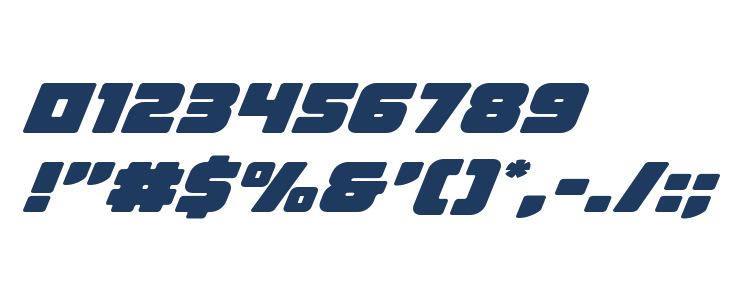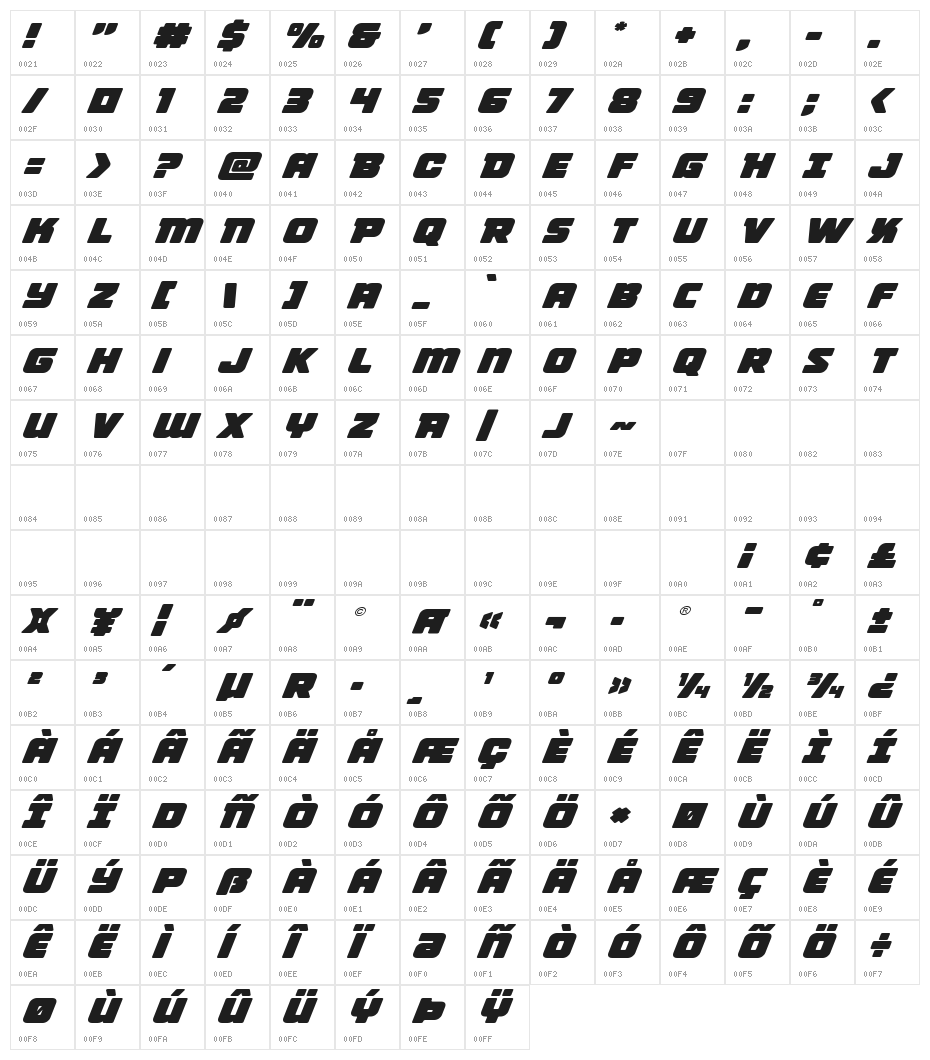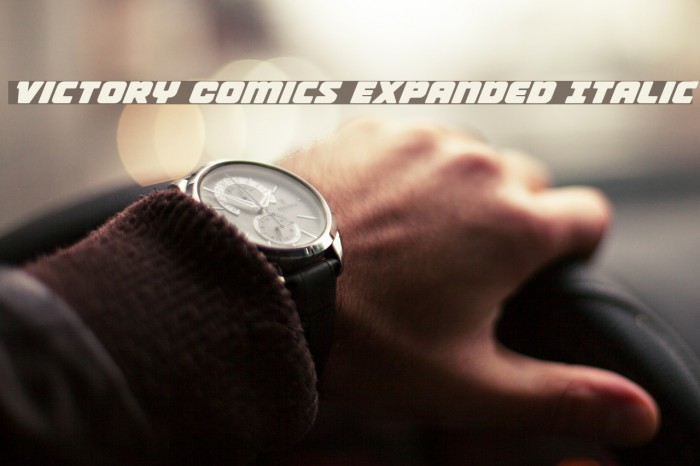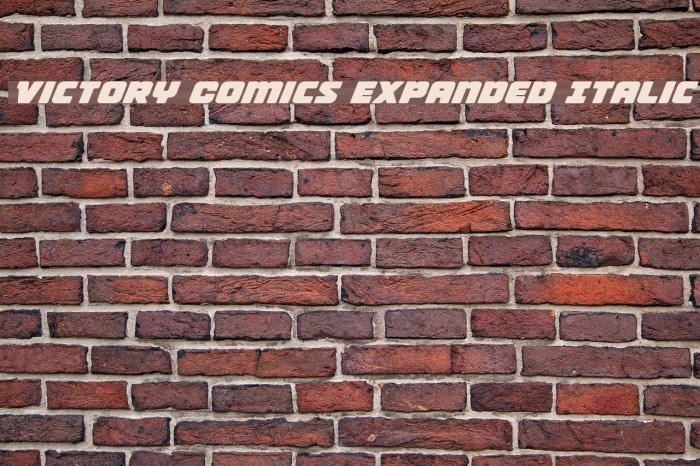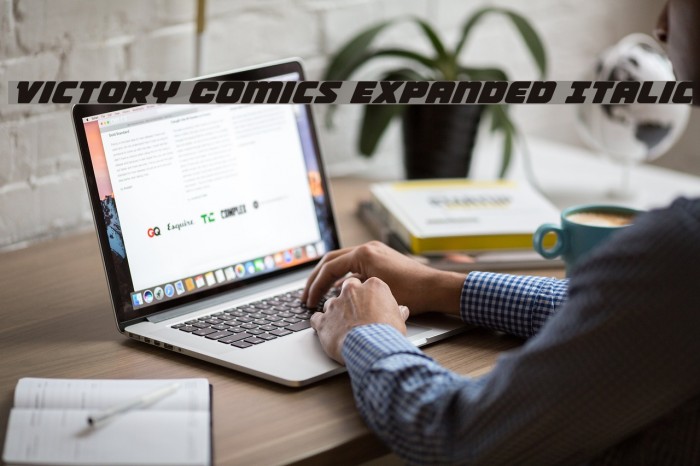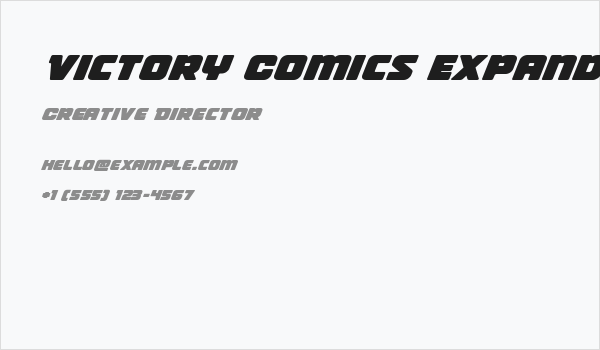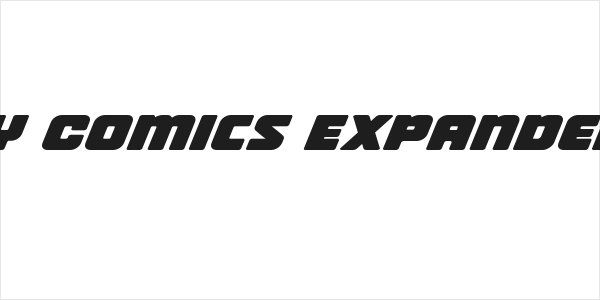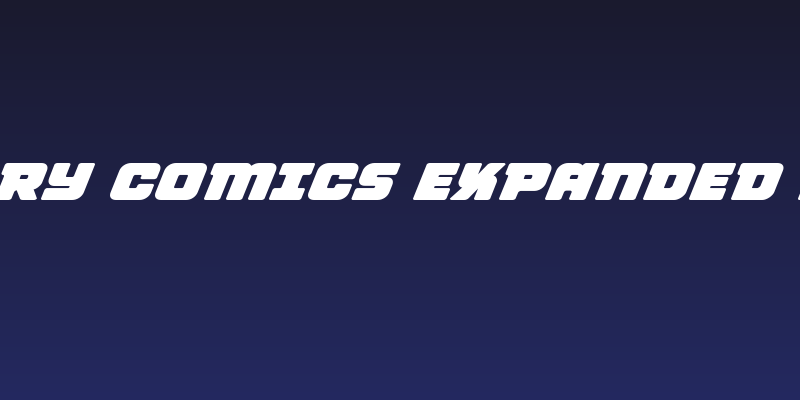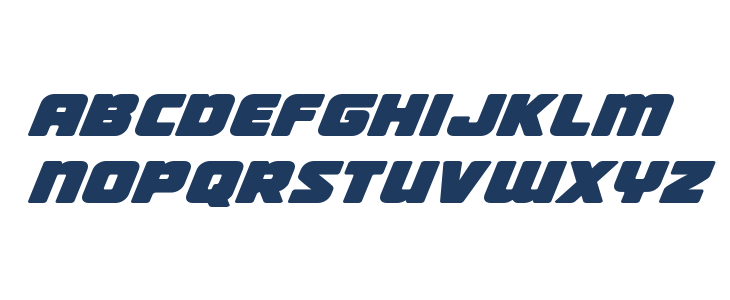
Victory Comics Expanded Italic Font
Victory Comics Expanded Italic Description
This font exhibits a bold and dynamic style with a distinctly italicized slant, giving it a sense of motion and energy. The characters are expanded, providing a wide and impactful presence. The boldness of the strokes is consistent throughout, creating a strong visual impression. Each letter is crafted with a modern flair, making it suitable for attention-grabbing headlines or titles. The font's design is clean and legible, even at smaller sizes, while maintaining its unique stylistic elements. The spacing between characters is tight, enhancing its compact and cohesive look.
| Proposed Projects | Ideal for comic book titles, posters, branding materials, and any project requiring a bold and energetic typeface. |